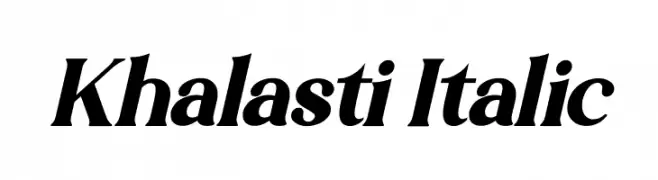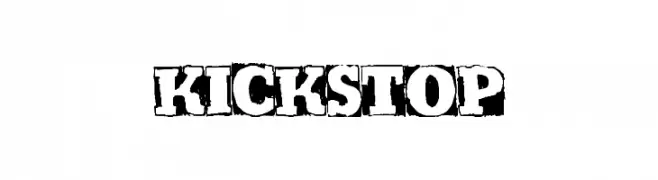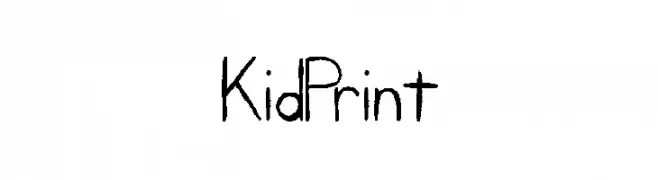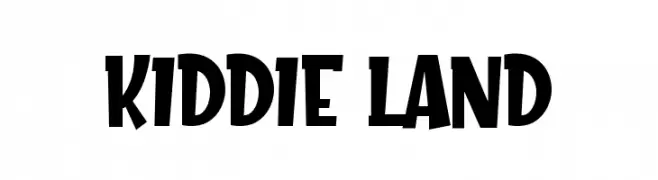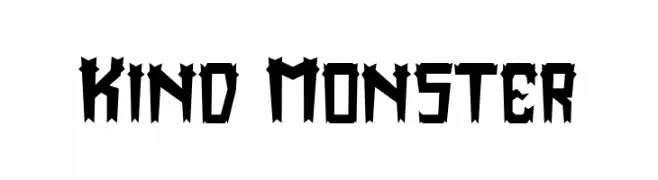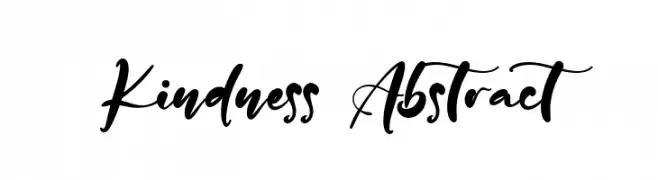
• Khalasti Italic
A bold, italic font with a dynamic and elegant style.
• Khilafah
A playful, handwritten font with a casual and approachable style.
• Khilafah
A playful, handwritten-style font with bold, rounded characters.
• Kickstop
• Kiddie Land
A playful, bold font with a whimsical, hand-drawn style.
• KidPrint
A playful, handwritten font with a childlike, whimsical style.
• KidsDrawingsTwo
A dingbat font of hand-drawn children's drawings and playful scenes.
• Kind Monster
A bold, angular font with sharp edges and a modern, aggressive style.
• Kindness Abstract
A cursive script font with elegant, flowing strokes and decorative flourishes.
• King And Queen
A playful, rounded font with consistent stroke width and elegant curls.